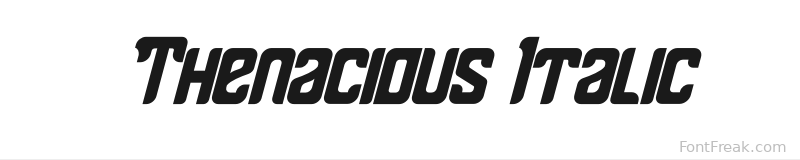
Thenacious Italic
Thenacious Italic is a striking display font designed by Kong Font, characterized by its bold, italicized style that exudes a sense of dynamism and modernity. This font falls into the category of display typefaces, making it an excellent choice for projects that require attention-grabbing text. The visual characteristics of Thenacious Italic are defined by its thick stroke weight, which creates a strong presence, and a moderate contrast that adds a layer of sophistication. The spacing is tight yet balanced, ensuring that each letter integrates seamlessly with its neighbors, while the overall aesthetic is infused with a playful flair through its unique letterforms.
This font is incredibly versatile and is particularly well-suited for a variety of creative applications. It shines in wedding invitations, where its elegant yet bold appearance can add a touch of personality. Movie posters also benefit from its impactful design, capturing the viewer's attention while conveying a sense of excitement. Restaurant menus can utilize Thenacious Italic to highlight special dishes or sections, ensuring that they stand out to diners. Additionally, it serves well in promotional materials for small businesses, making advertisements pop with its distinctive style.
The target audience for Thenacious Italic includes graphic designers looking to enhance their projects, small business owners aiming to create memorable branding, and content creators who want to captivate their audience with visually appealing typography.
What sets the Thenacious Italic font apart is its perfect blend of boldness and elegance, allowing it to make a statement without overwhelming the viewer. With its freeware license, the Thenacious Italic font free download offers an accessible option for anyone looking to elevate their design projects with a unique and stylish typeface.